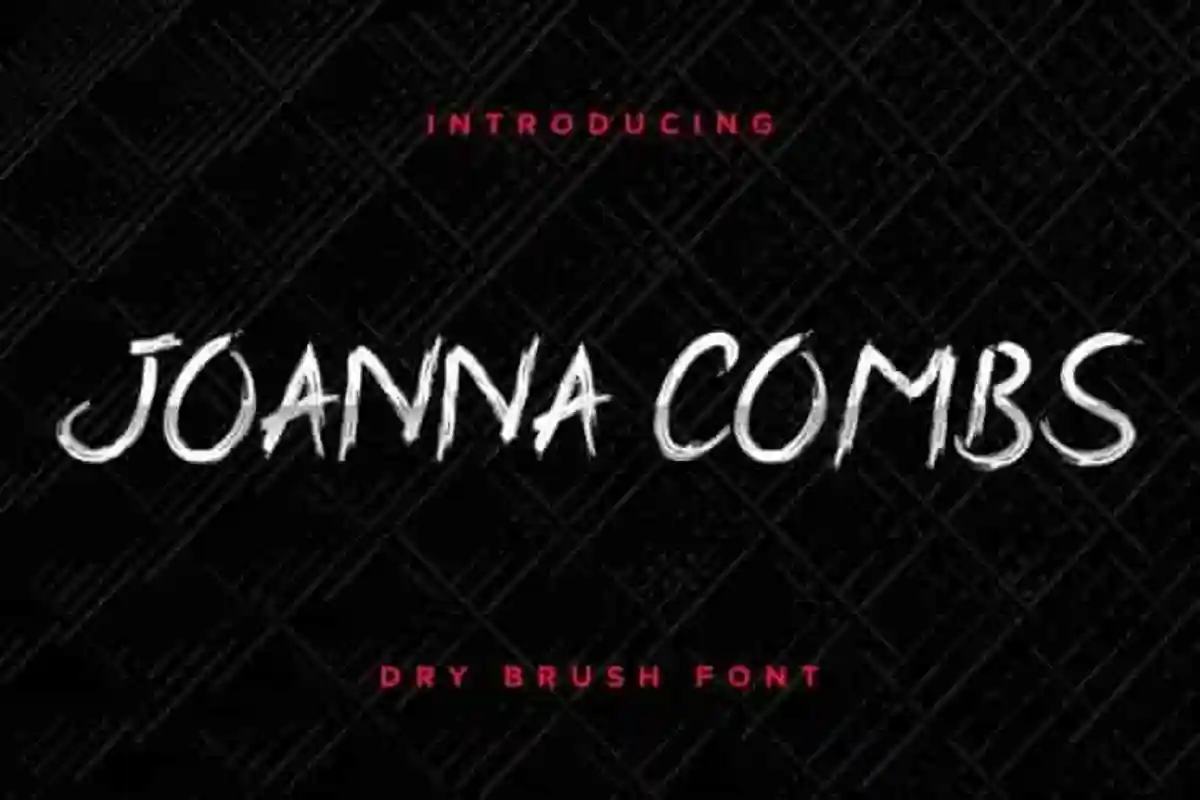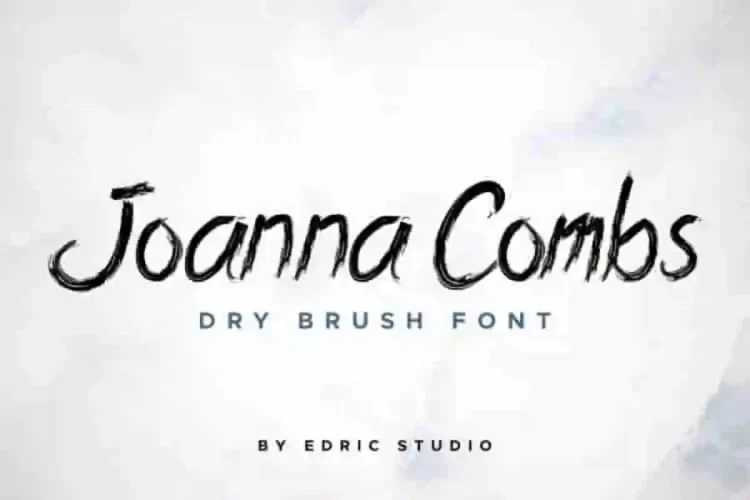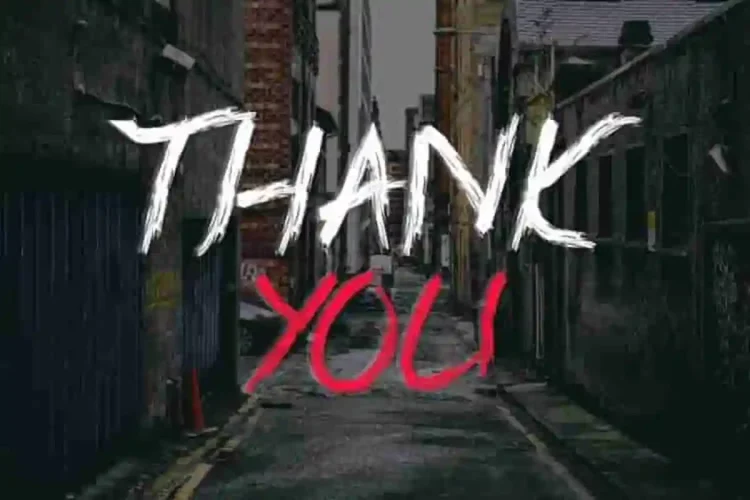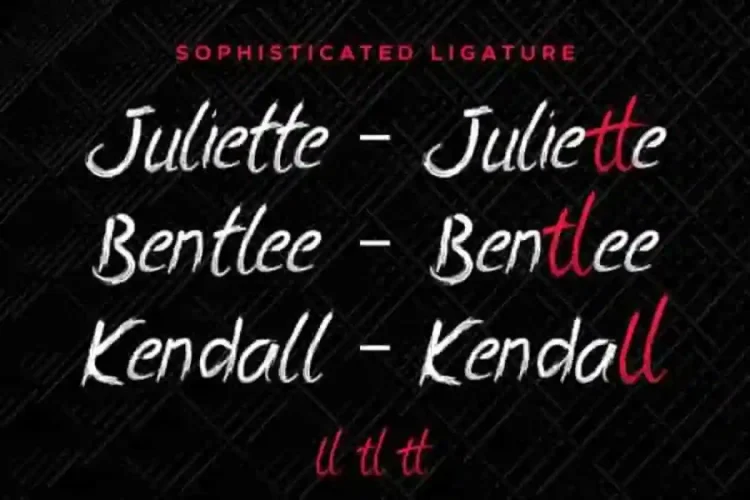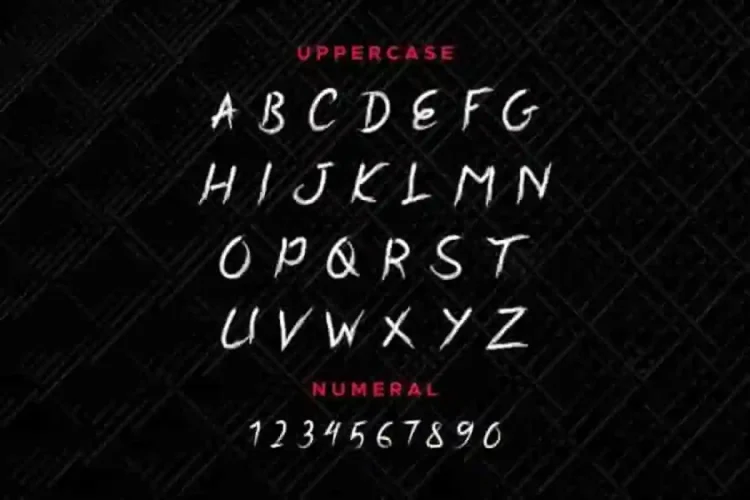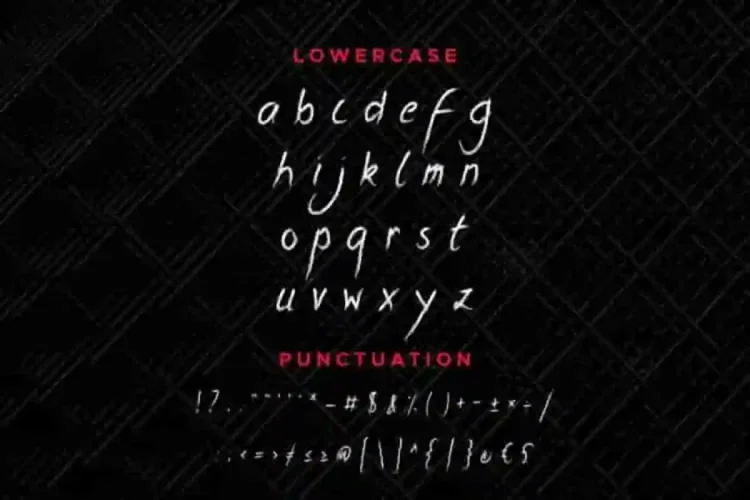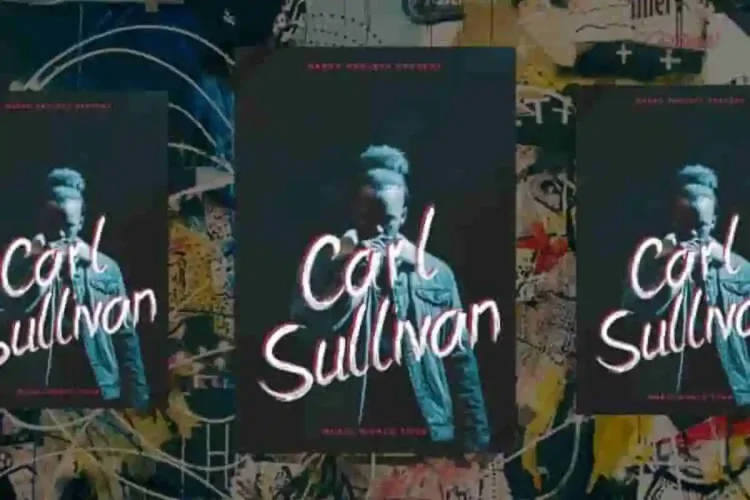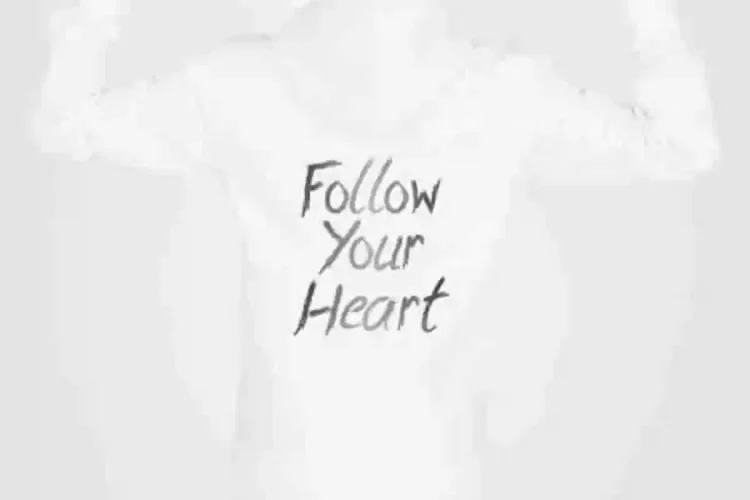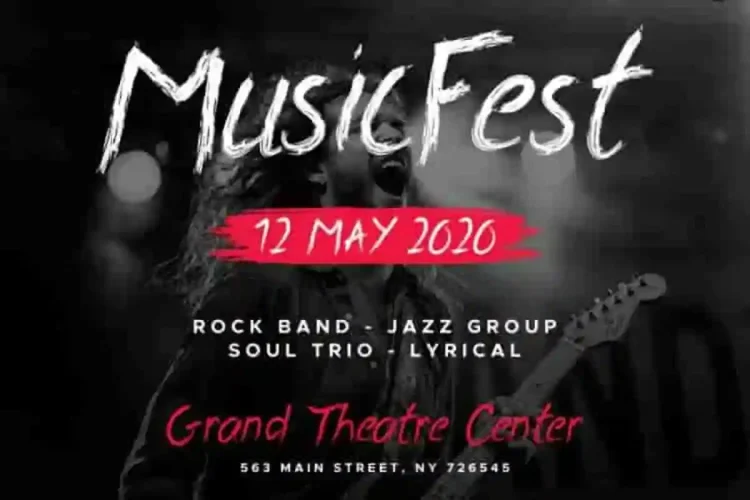
Joanna Combs Script Brush Font
This is a display font, handcrafted from our Studio here in, Indonesia. The artists/designers of this beautiful typeface is Nouval and Suci.
Joanna Combs Script Brush Font is an exclusive display typeface with grunge rough dry brush style. This font has a stunning characters set, perfectly managed with well spaced and kerning. The theme style of this font will horror, vintage, mysterious, masculine, classic, and strong dry hand brush style. This is the one and only for its kind :D
Joanna Combs Script Brush Font will be great for many projects including : branding, logo, stationery, business card, signage, flyer, brochure etc. Almost all industries will be match for this typeface: events, promotion, architect, painting, florist, gardening, makeup artist, travel, game, musician etc